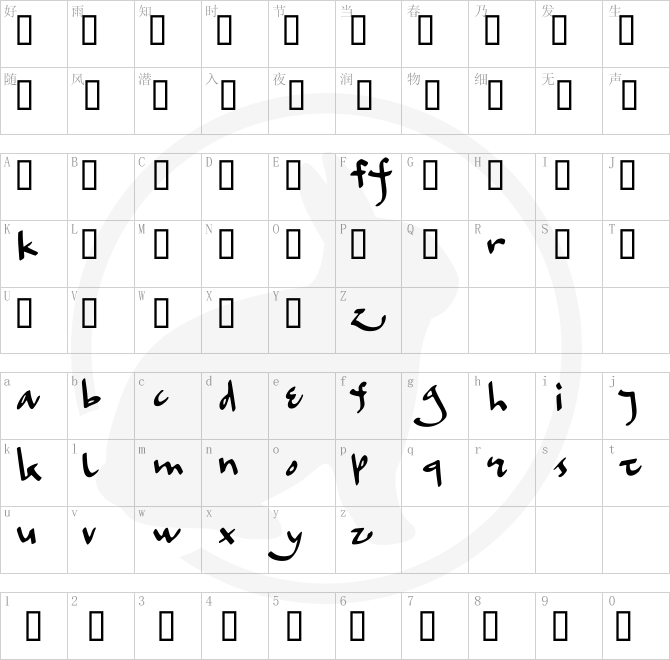
- Font Name:Oblata Kurrenta
Oblata-Kurrenta.ttf is a very beautiful artistic font, Oblata-Kurrenta.ttf is widely used in the design and printing of various books and pictures,Oblata-Kurrenta.ttf has a strong visual impact,Oblata-Kurrenta.ttf is a commonly used font in newspapers, magazines and books, and is used in posters, e-commerce Poster design, store design, logo design, font design and other fields.Oblata-Kurrenta.